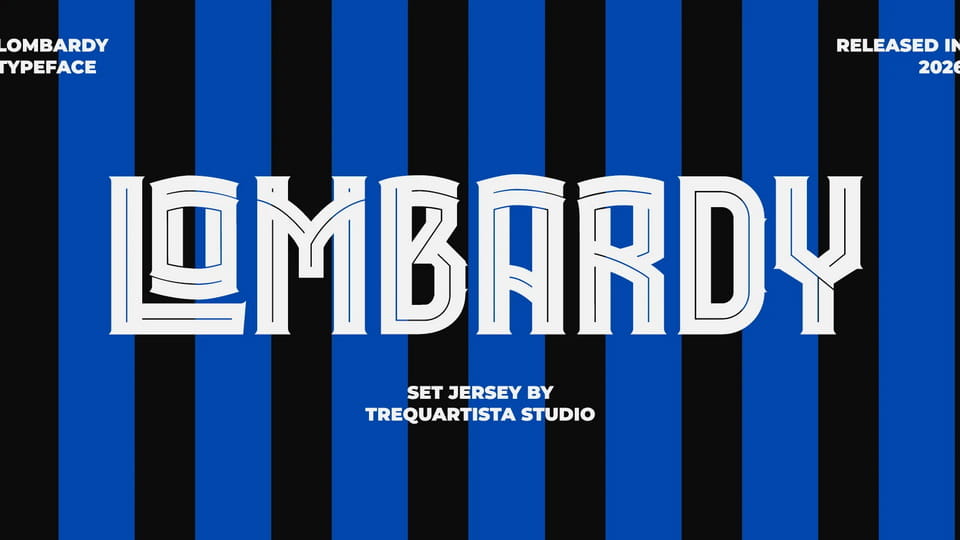
Download Lombardy font, a bold display typeface inspired by the rich football culture of Northern Italy — particularly the cities of Milan and Bergamo.
Designer: Trequartista Studio